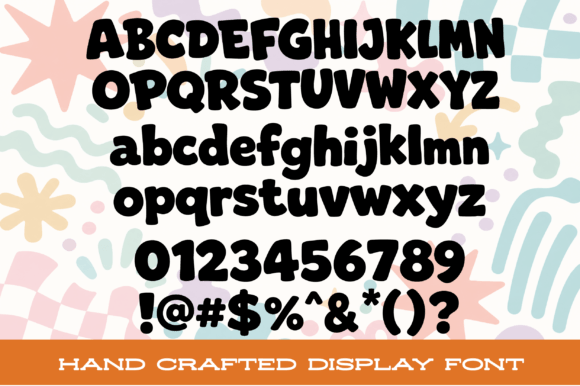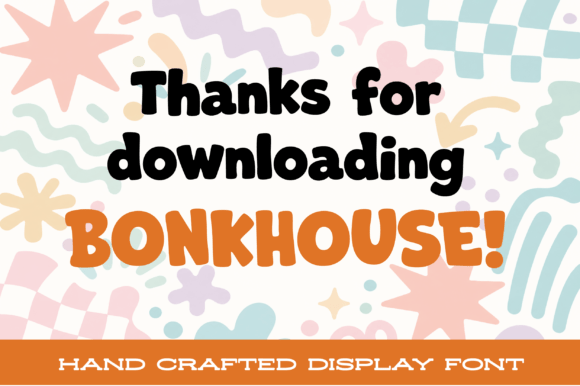
Introducing Bonkhouse Font: The Ultimate Display Font for Bold Designs
Are you tired of using the same old fonts in your designs? Look no further than Bonkhouse Font, a chunky, playful display font that’s packed with bold personality. With its heavy rounded letterforms, slightly wild proportions, and hand-drawn charm, Bonkhouse brings a fun, high-energy feel to any design.
The Characteristics of Bonkhouse Font
Bonkhouse Font is a one-of-a-kind display font that boasts a unique set of characteristics. Its heavy rounded letterforms give it a friendly and approachable feel, while its slightly wild proportions add a touch of playfulness. The hand-drawn charm of Bonkhouse Font makes it feel both retro and fresh, perfect for designers who want to add a dash of personality to their work.
What Makes Bonkhouse Font So Versatile?
Bonkhouse Font is an incredibly versatile font that can be used in a wide range of design applications. Whether you’re creating posters, stickers, kids’ designs, logos, packaging, apparel, or social graphics, Bonkhouse Font is the perfect choice. Its bold black-and-white punch makes it easy to read and attention-grabbing, while its quirky curves and bouncy shapes make every word feel expressive and memorable.
The Benefits of Using Bonkhouse Font
So why should you choose Bonkhouse Font for your next design project? Here are just a few benefits of using this amazing font:
• Adds personality to your designs: Bonkhouse Font is the perfect way to add a dash of personality to your designs. Its unique characteristics make it stand out from more traditional fonts.
• Perfect for bold designs: If you want to create a bold design that grabs attention, Bonkhouse Font is the perfect choice. Its heavy rounded letterforms and bold black-and-white punch make it easy to read and attention-grabbing.
• Versatile: Bonkhouse Font can be used in a wide range of design applications, from posters and stickers to logos and packaging.
• Easy to read: Despite its bold and playful nature, Bonkhouse Font is easy to read, making it perfect for designs that need to communicate a message.
How to Use Bonkhouse Font in Your Designs
Using Bonkhouse Font in your designs is easy. Here are a few tips to get you started:
• Use it as a display font: Bonkhouse Font is perfect for use as a display font. Use it to create bold headings and titles that grab attention.
• Experiment with different colors: While Bonkhouse Font is often used in black and white, you can experiment with different colors to add an extra layer of personality to your designs.
• Pair it with other fonts: Bonkhouse Font pairs well with a wide range of other fonts. Try pairing it with a more traditional font to create a bold and eye-catching design.
Who is Bonkhouse Font Perfect For?
Bonkhouse Font is perfect for designers and crafters who want to add a dash of personality to their work. Whether you’re a professional designer or a DIY crafter, Bonkhouse Font is a great choice for anyone who wants to create bold and eye-catching designs.
• Designers: Bonkhouse Font is perfect for designers who want to create bold and eye-catching designs. Its unique characteristics make it stand out from more traditional fonts.
• Crafters: Bonkhouse Font is also perfect for crafters who want to add a personal touch to their work. Whether you’re creating handmade cards or DIY decorations, Bonkhouse Font is a great choice.
• Small business owners: Bonkhouse Font is also a great choice for small business owners who want to create bold and eye-catching branding. Its unique characteristics make it stand out from more traditional fonts.
Font Name Bonkhouse Font
In conclusion, Bonkhouse Font is a unique and versatile display font that’s perfect for designers and crafters who want to add a dash of personality to their work. Its bold and playful nature makes it perfect for a wide range of design applications, from posters and stickers to logos and packaging. With its heavy rounded letterforms, slightly wild proportions, and hand-drawn charm, Bonkhouse Font is sure to bring a fun and high-energy feel to any design.